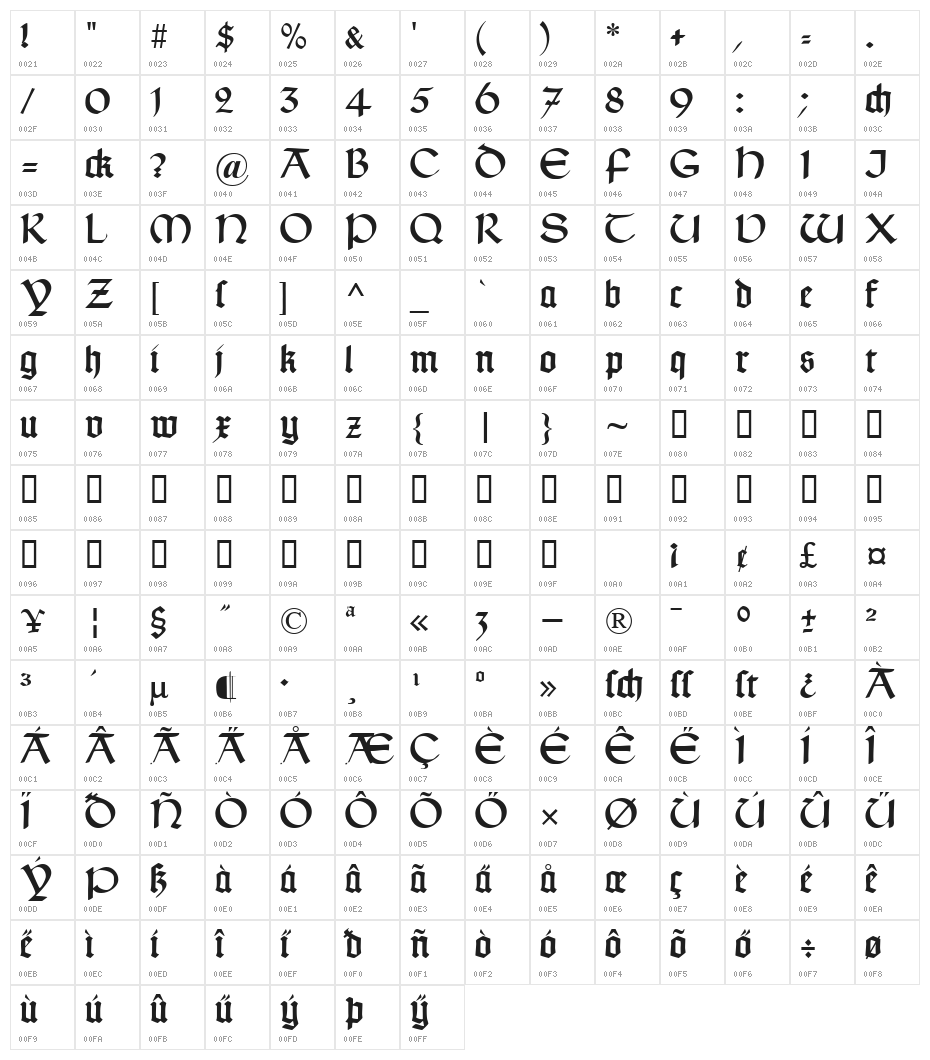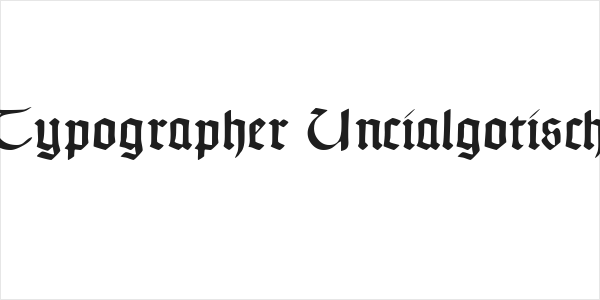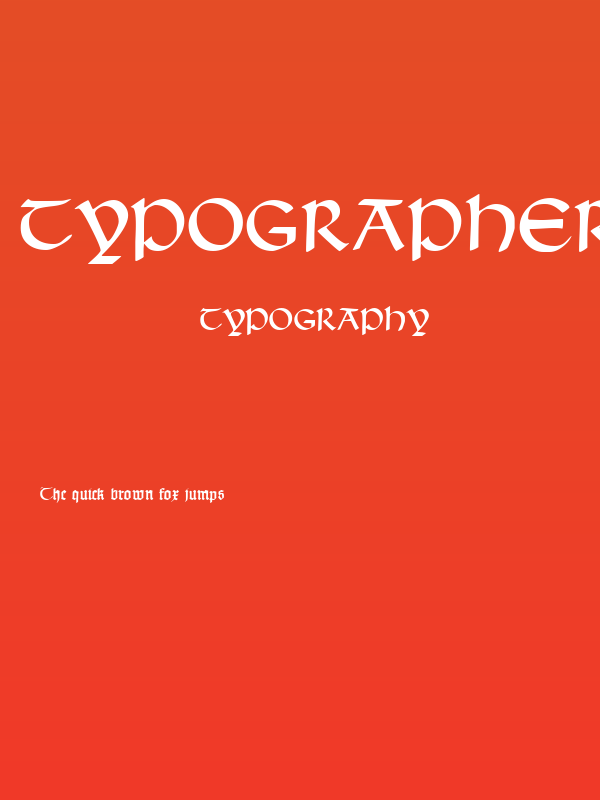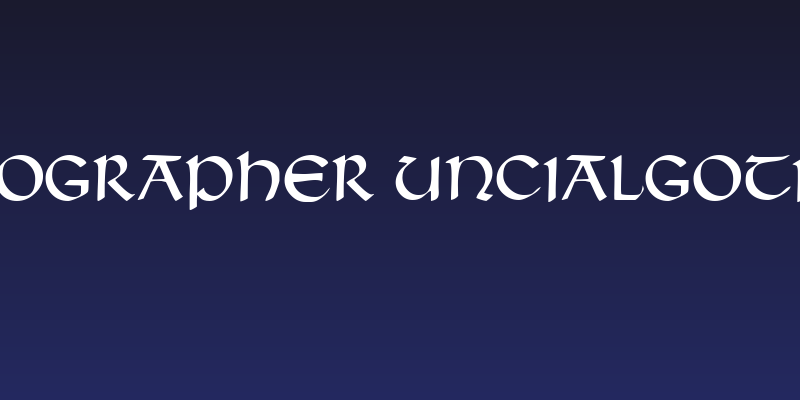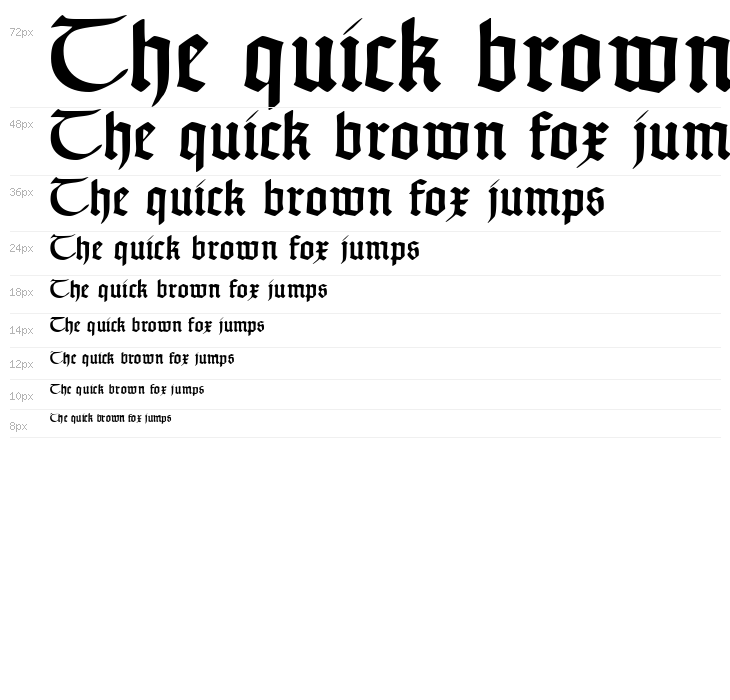
Typographer Uncialgotisch Font
Typographer Uncialgotisch Description
This font features a distinct blend of medieval and gothic influences, characterized by sharp, angular lines and a bold presence. The uppercase letters exhibit a strong, authoritative style with pointed serifs and a slightly condensed form, giving them a majestic appearance. The lowercase letters maintain the gothic theme with intricate details and a consistent stroke weight, enhancing readability while preserving the decorative essence. Numerals are crafted with a similar attention to detail, ensuring they complement the overall aesthetic. Special characters are thoughtfully designed to match the font's unique style, making it suitable for projects that require a historical or dramatic flair.
Fonts by Dieter Steffmann
| Overall Style | Gothic, Medieval |
| Use Case | Headlines, Logos, Decorative text |
| Proposed Projects | Ideal for historical documents, fantasy book covers, themed event invitations, and branding that requires a gothic or medieval aesthetic. |